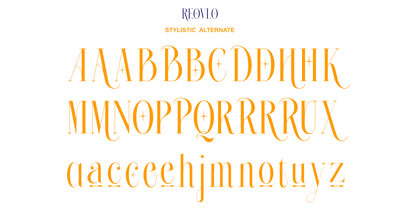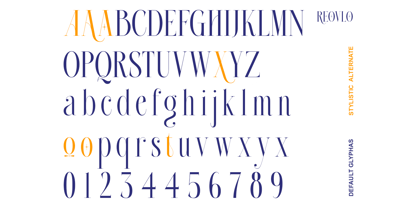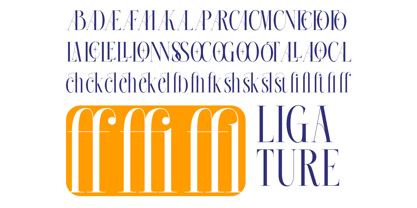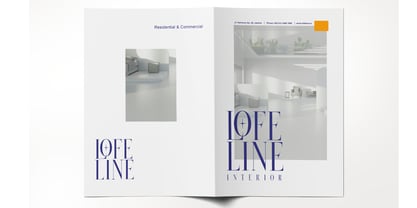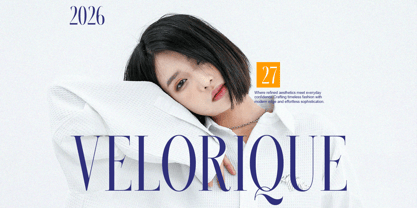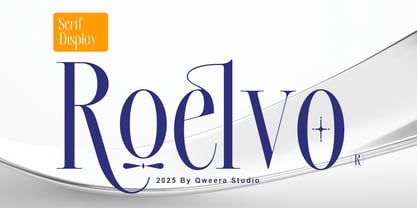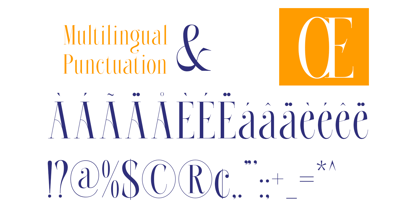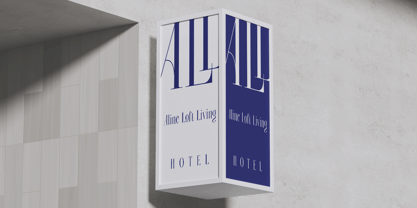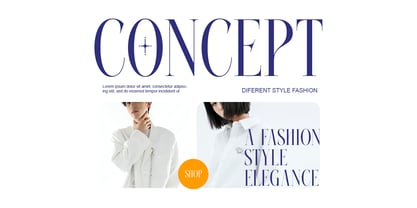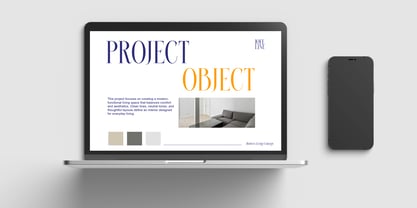
Roelvo
by Qweera Studio
The Roelvo Font Family was designed by Idhham Cholid Rikzano Yahya and published by Qweera Studio. Roelvo contains 2 styles and family package options. More about this family
Roelvo is a modern elegant display serif designed with refined contrast and balanced proportions. It delivers sophisticated typography suitable for branding, editorial layouts, and packaging design. With alternates, ligatures, and multilingual support, Roelvo offers flexibility for professional typography across print and digital applications. Ideal for designers seeking minimal luxury serif typography. Features Alternates Ligatures Multilingual support Professional kerning Clean contrast Specifications Language Support: Western, Central Europe Features: Alternates, Ligatures Recommended For Luxury branding, editorial typography, packaging design, logo identity, fashion branding.
Designers: Idhham Cholid Rikzano Yahya
Foundry: Qweera Studio
Roelvo